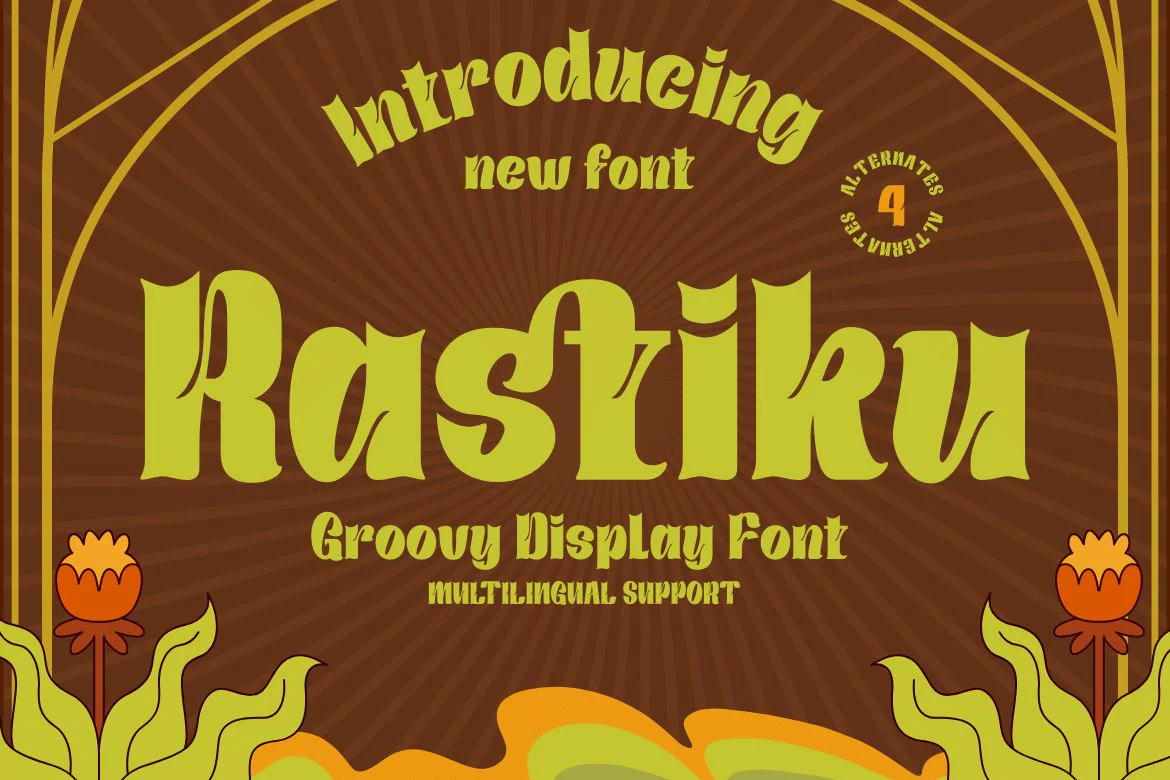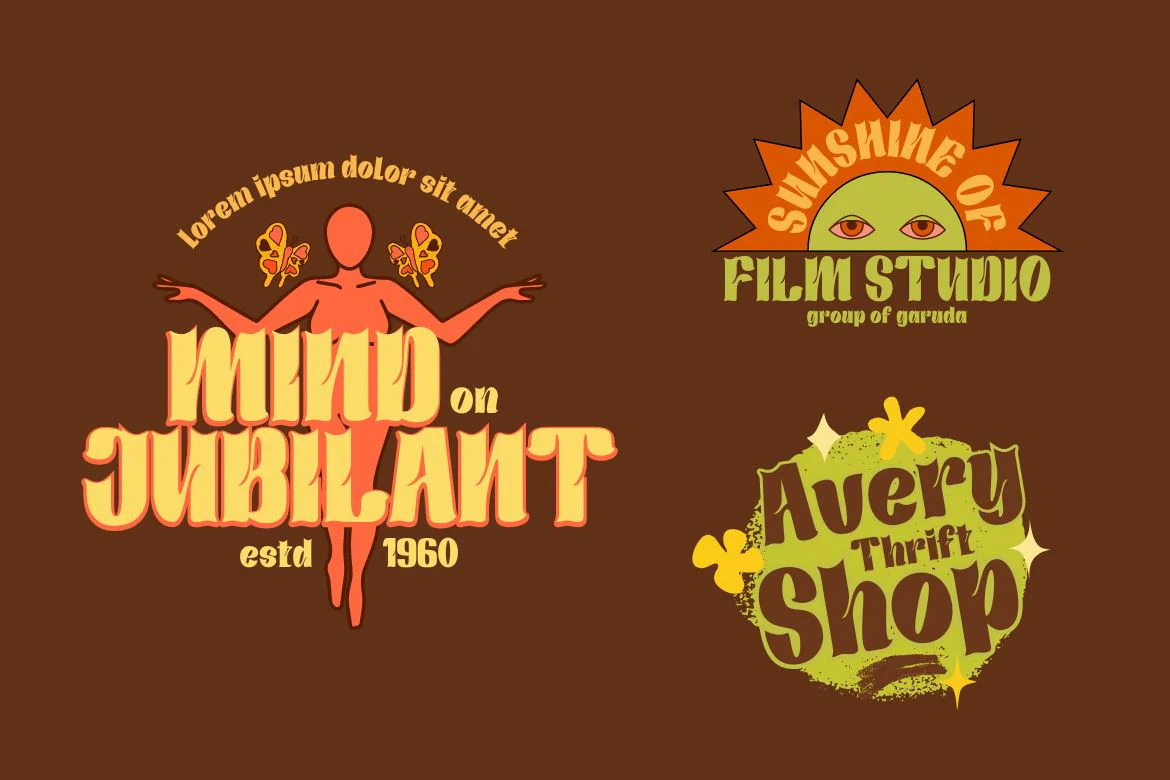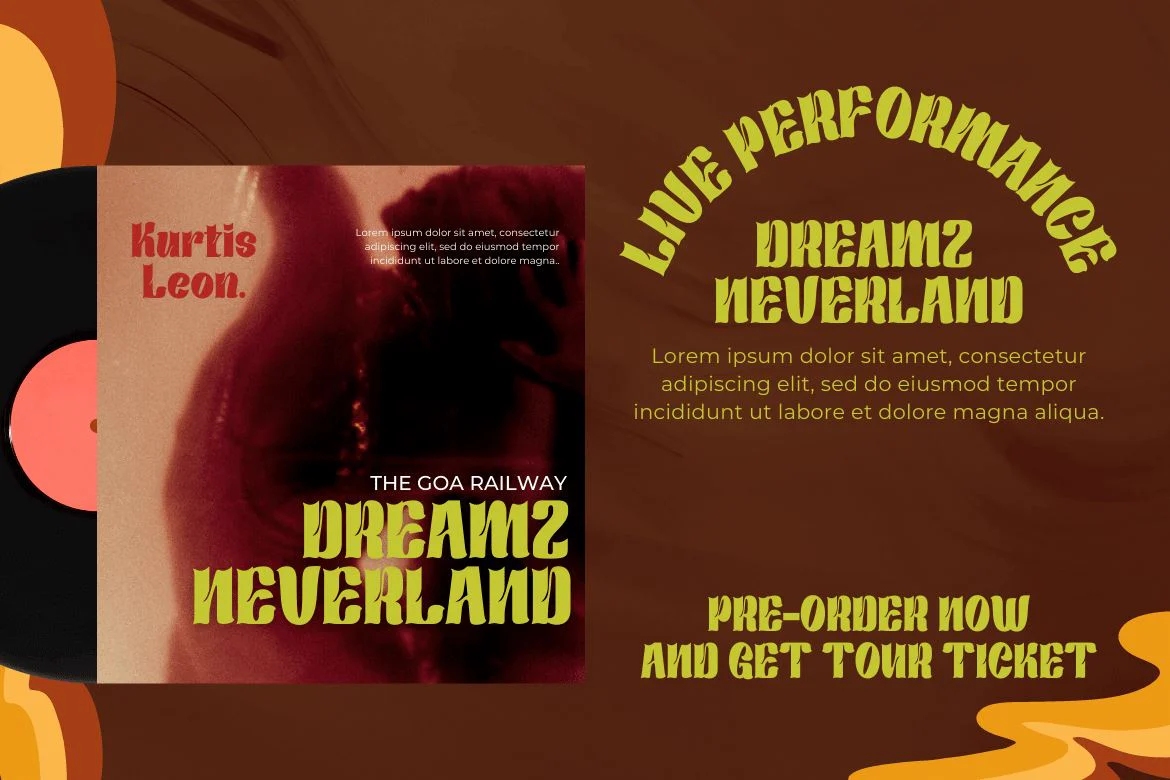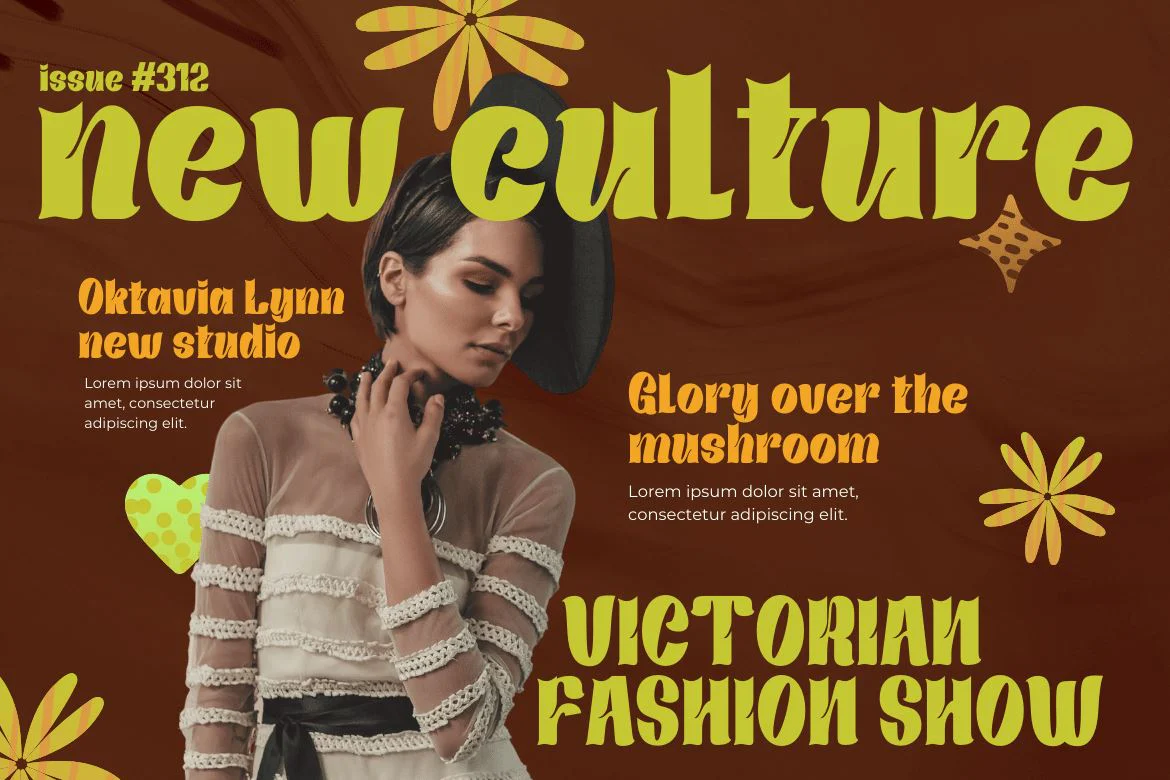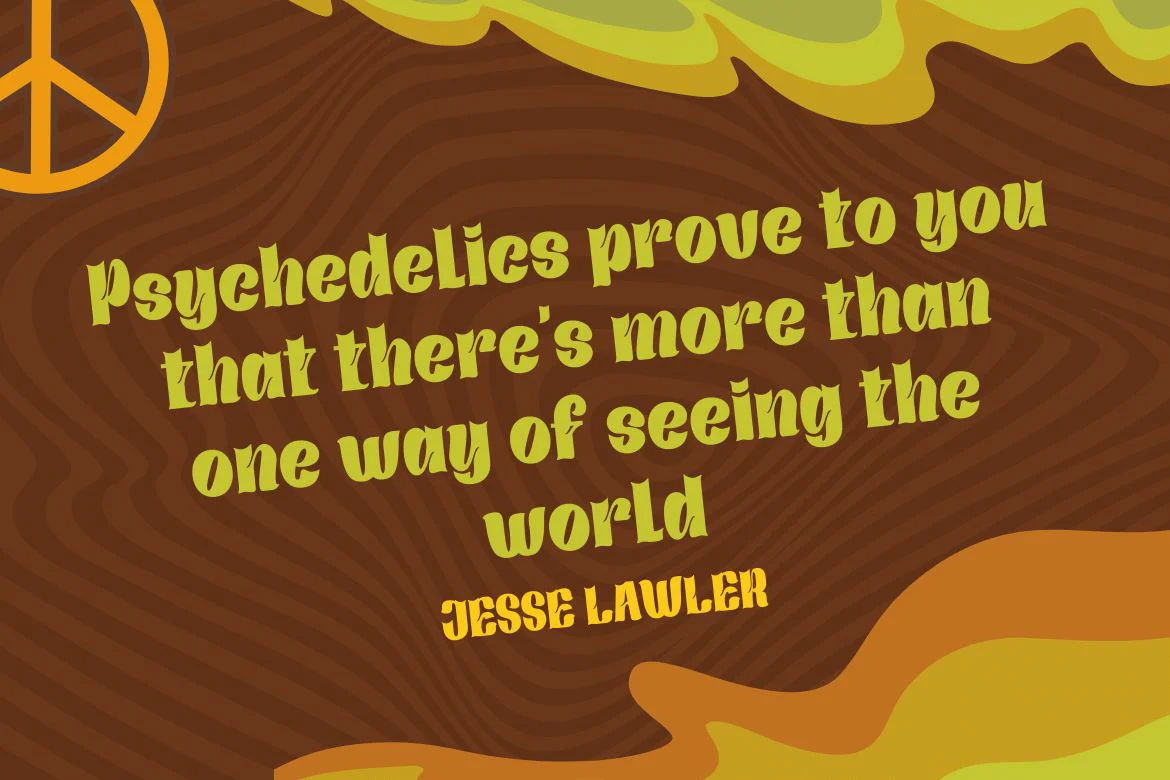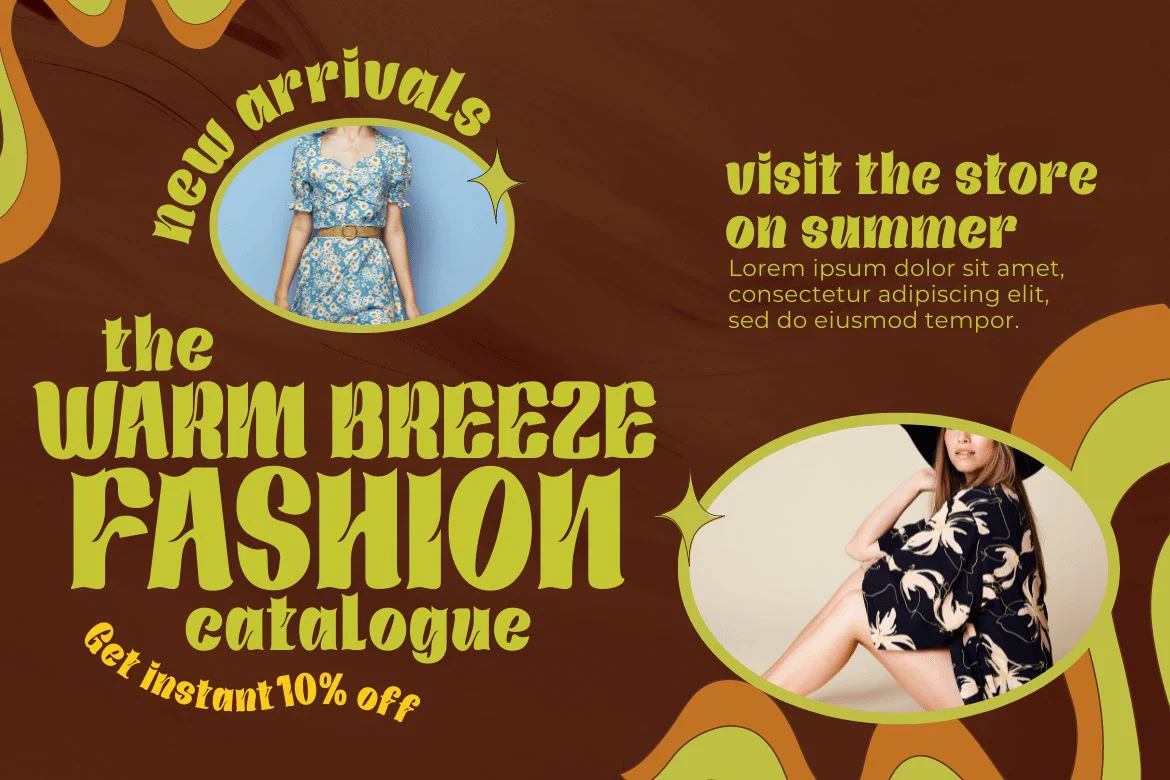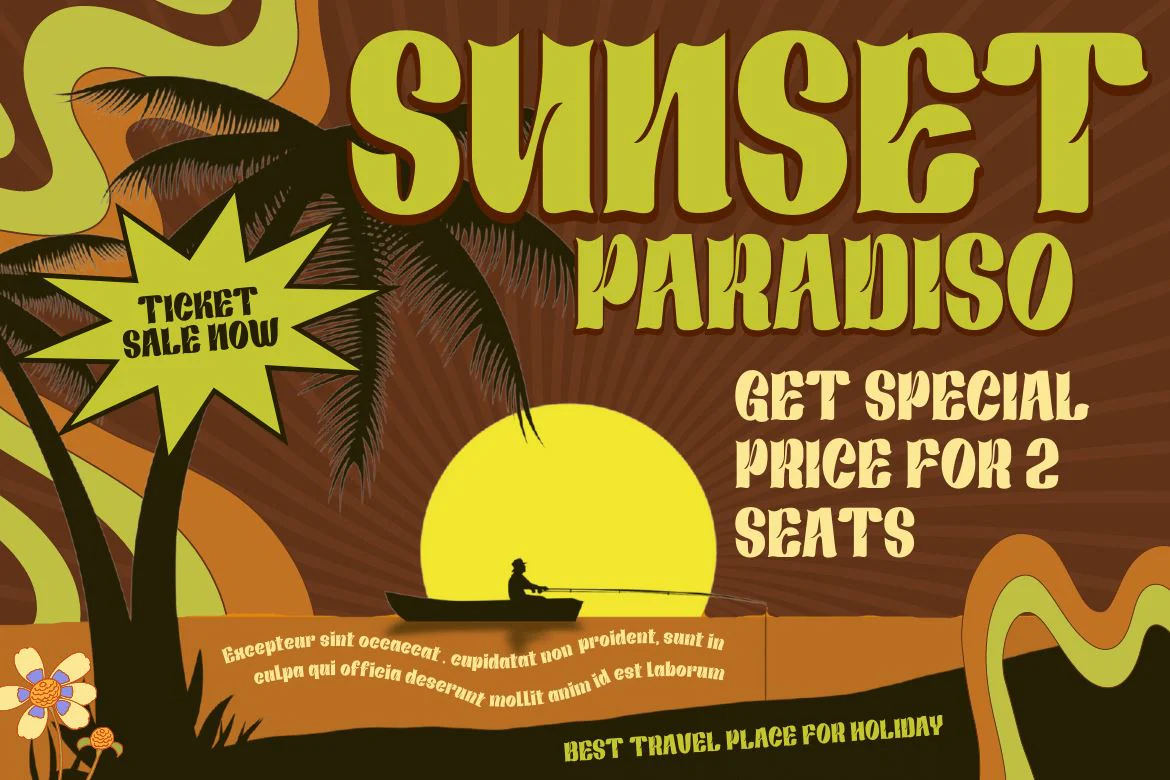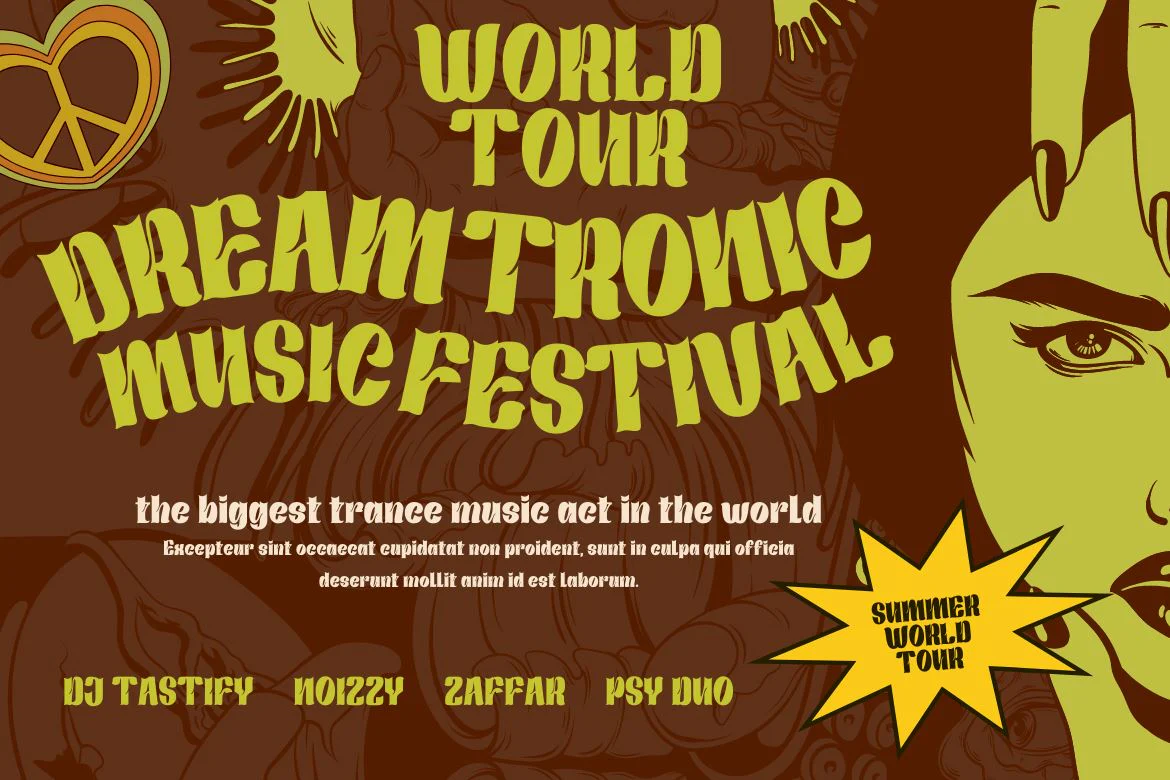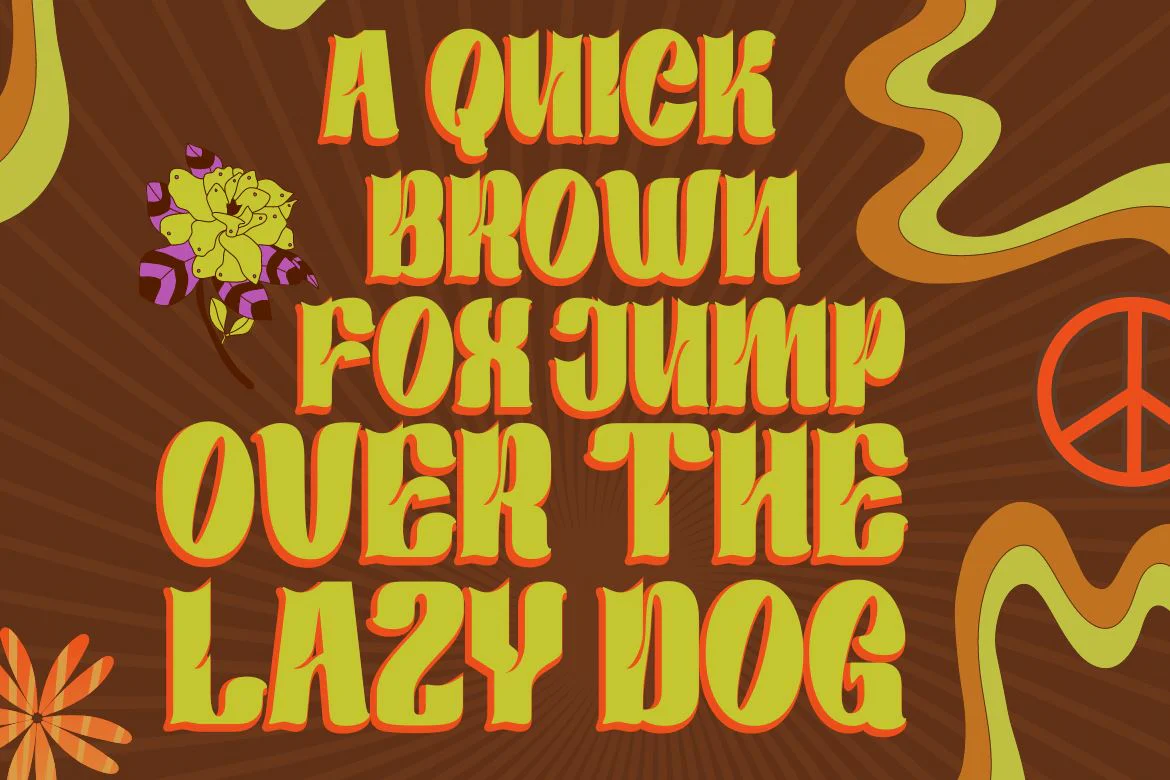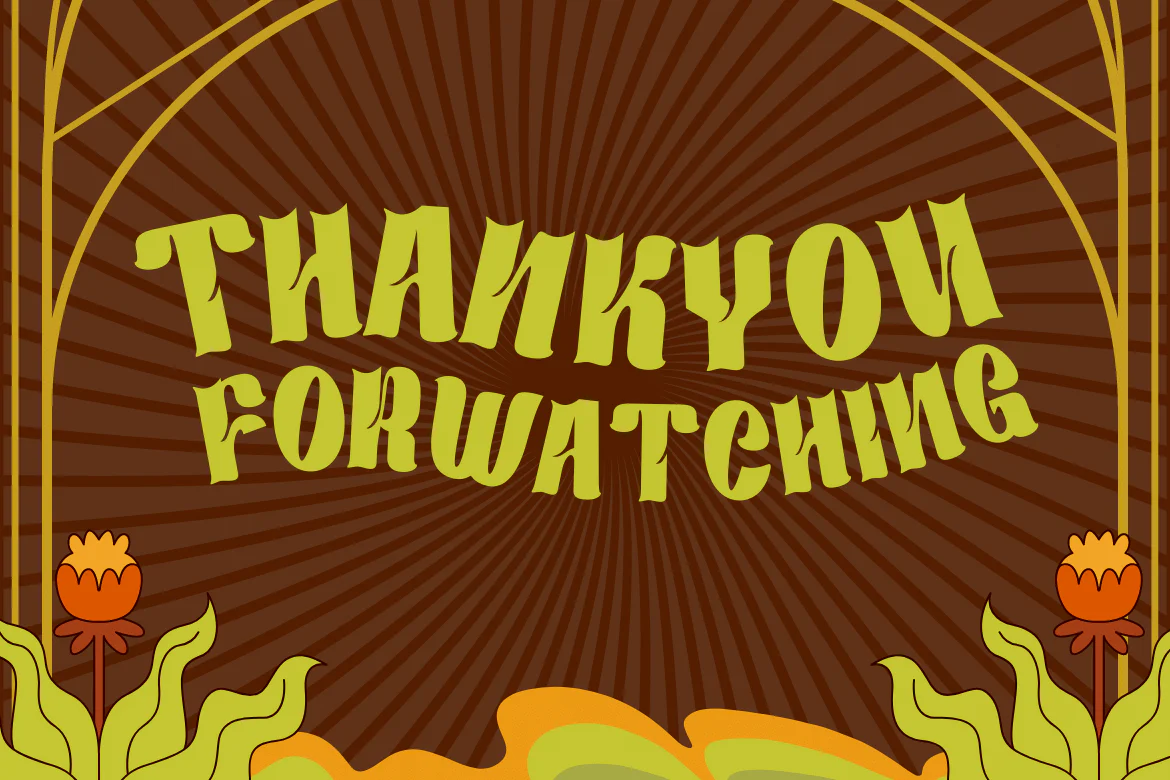
Rastiku | Groovy Retro Font
The Rastiku Groovy font is a bold, fun, and retro character, for all your design purposes! This is a versatile and vintage typeface that is perfect for any of your creative projects and will help make your designs stand out. The ideal font for your readers because it’s easy to read and ideal for branding, product packaging, or just to add a little flair to your editorial work.
This fun Rastiku font has the right shape and subtle blend of different letter angles making this font very pleasing to the eye as both the title and sentence text of your projects. So what are you waiting for? Stop procrastinating and immediately incorporate it into your designs!